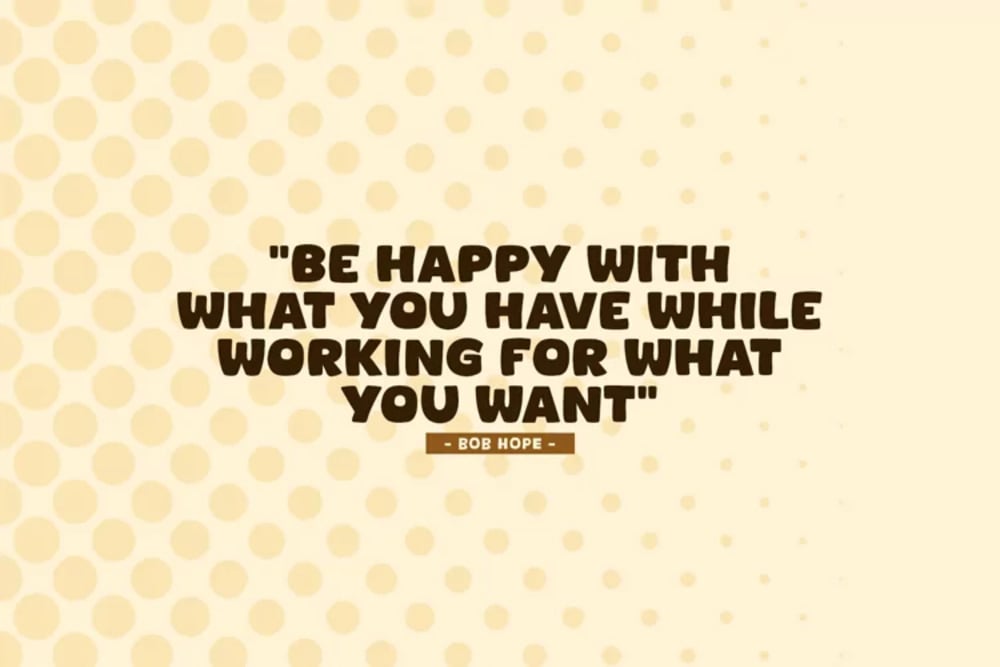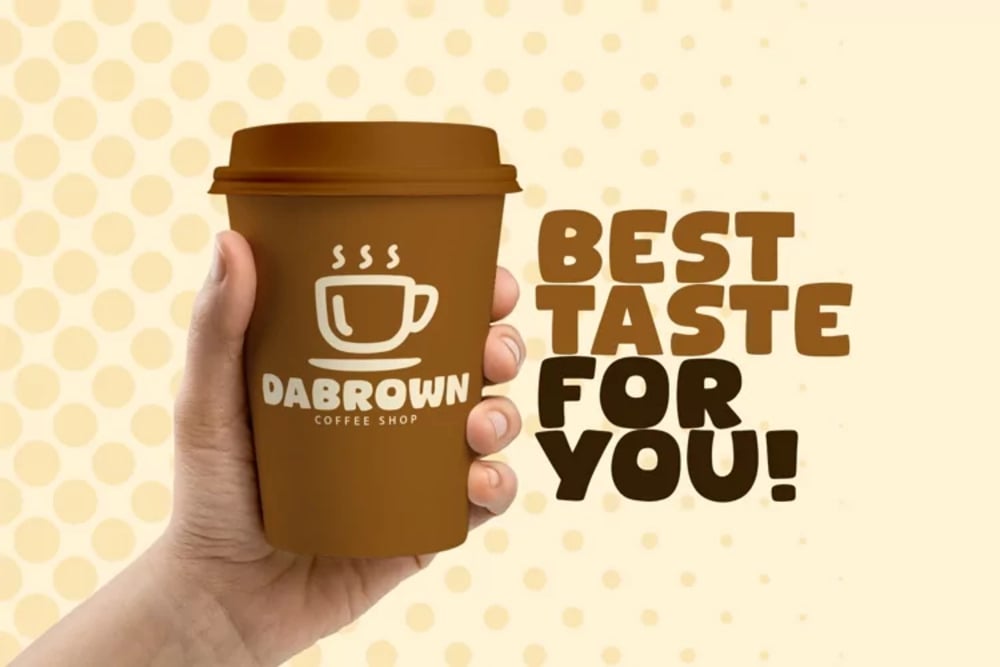
Besty Beige Font
Besty Beige is a chic and elegant serif font with a soft, sophisticated touch. Its delicate curves, refined serifs, and balanced proportions create a timeless aesthetic, perfect for luxury branding, editorial layouts, and high-end packaging. With a harmonious blend of modern grace and classic charm, Besty Beige adds a sense of warmth, style, and refinement to any design.